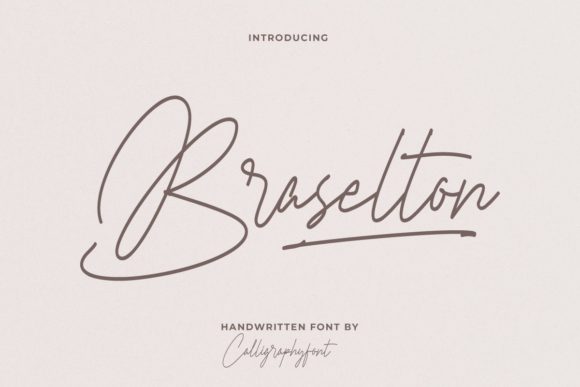
**Embrace the Allure of Braselton: Captivating Script for Timeless Creations**
Step into the enchanting realm of Braselton, a captivating script font that exudes elegance and grace. Crafted with meticulous attention to detail, each letter flows effortlessly, leaving an indelible mark on your designs. Whether you're a seasoned calligrapher or simply seeking a touch of handwritten charm, Braselton will elevate your projects to new heights.
Unleash your creativity with Braselton's versatile nature. Perfectly suited for a myriad of projects, this font will breathe life into your invitations, logos, branding, and more. Its delicate strokes and flowing lines add a touch of sophistication to any occasion.
Dive into the world of Braselton and discover a treasure-trove of glyphs and swashes, effortlessly accessible through PUA encoding. Embellish your designs with intricate flourishes and create masterpieces that captivate and inspire.
**Indulge in the Beauty of Braselton**
Braselton is not just a font; it's an expression of your unique style. Its elegant curves and graceful loops evoke a sense of timeless beauty. Imagine your words transformed into works of art, leaving a lasting impression on your audience.
With Braselton by your side, you'll create designs that are not merely visually appealing but deeply evocative. Its versatility empowers you to infuse your projects with personality and charm. Whether you're crafting invitations for a special celebration or designing a captivating logo, Braselton will become your go-to choice for stunning results.
**Unleash Your Inner Artist with Braselton**
Join the countless artists and designers who have embraced the allure of Braselton. Let your creativity soar as you explore the endless possibilities this remarkable font offers. With Braselton as your companion, you'll create designs that captivate, inspire, and leave an enduring legacy.